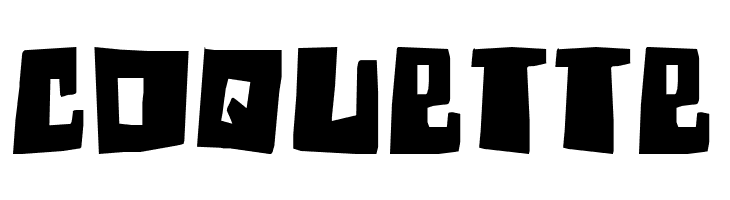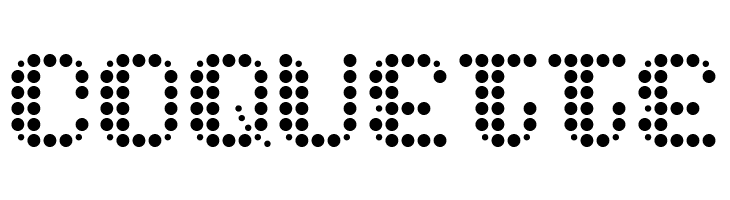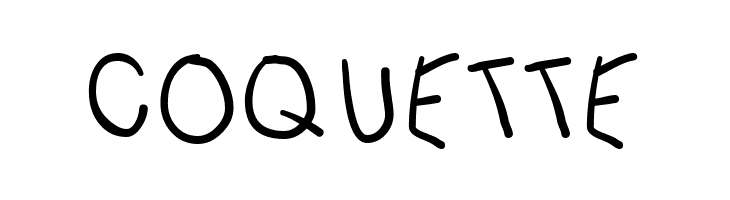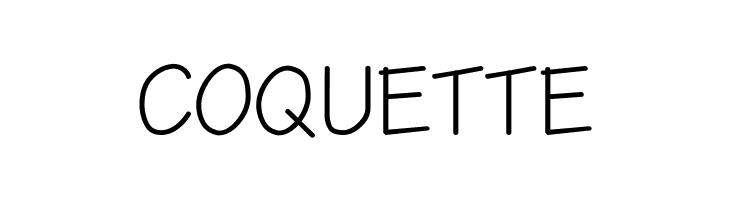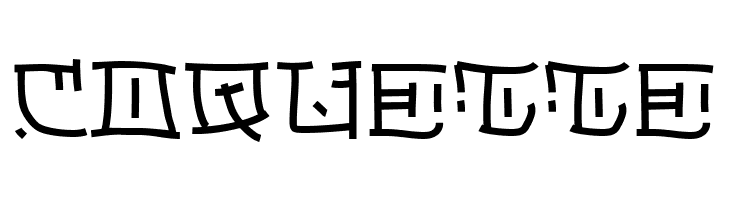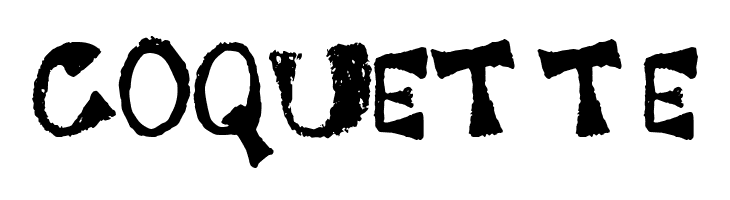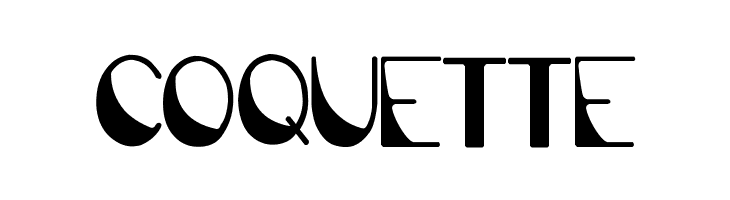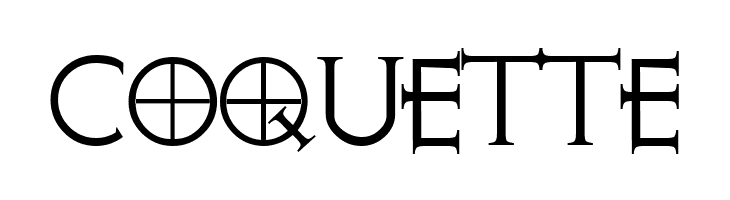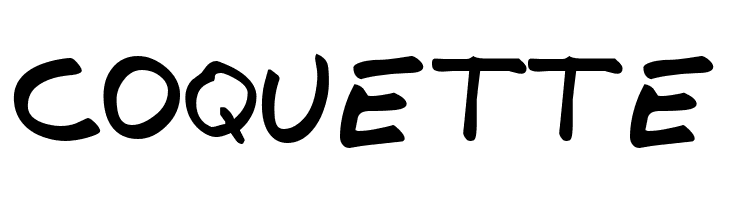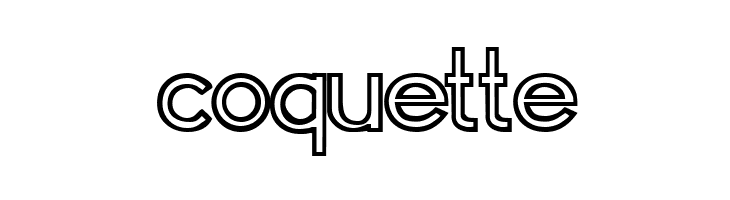
A classic serif font with elegant strokes and refined details.
A bold, rounded serif font with a modern twist and smooth curves.
A traditional blackletter font with ornate, gothic letterforms.
A bold, playful handwritten font with a casual and dynamic style.
A bold serif font with strong strokes and pronounced serifs, offering a modern yet classic look.
An elegant serif font with balanced contrast and excellent readability.
A bold serif typeface with high contrast and elegant serifs.
A modern, geometric font with sharp angles and a futuristic style.
A playful, hand-drawn font with bold, irregular shapes and a casual style.
An elegant, decorative serif font with intricate line work.
A classic serif font with high contrast and elegant curves.
A classic serif font with elegant strokes and refined design.
A whimsical and artistic font with swirling, elongated strokes and decorative curls.
An ornate, decorative serif font with intricate interior patterns.
A classic serif font with elegant curves and sharp serifs, offering a sophisticated and timeless look.
A decorative font inspired by traditional Celtic art with intricate patterns and motifs.
An ornate and decorative font with intricate floral and mythical designs.
A playful, handwritten font with smooth, rounded strokes and a casual style.
A dynamic and elegant cursive font with flowing, interconnected strokes.
A bold, cursive script with fluid, connected characters and a dynamic style.
An elegant, high-contrast script font with flowing, cursive-like strokes.
A sophisticated serif font with a blend of classic and modern elements.
A bold, high-contrast serif font with dynamic and elegant styling.
A modern, narrow sans-serif font with clean lines and a sleek appearance.